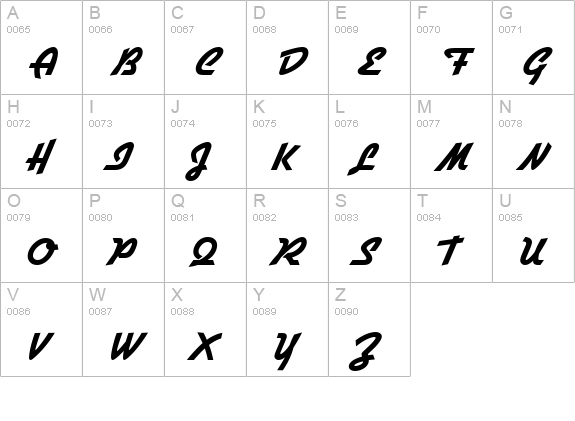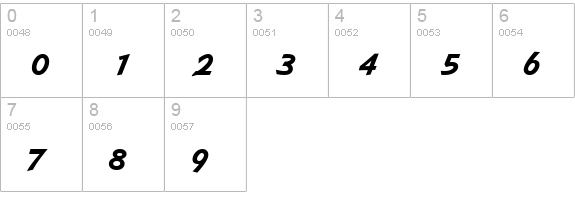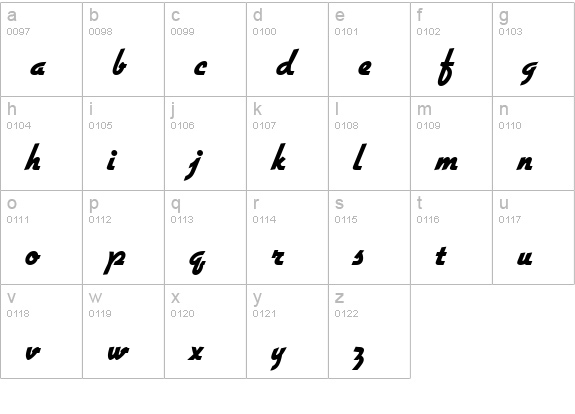
GilliesGotDExtBol Font Details
GilliesGotDExtBol is a bold and striking font that exudes modernity and sophistication. With its clean lines and distinctive letterforms, this typeface is perfect for making a bold statement in your designs. Whether you're creating posters, signage, or branding materials, GilliesGotDExtBol will make your text stand out with its strong presence. The best part? This versatile font is available for free download at FontsMarket.com. Take advantage of this opportunity to add a touch of elegance and style to your projects without breaking the bank. Upgrade your design game today with GilliesGotDExtBol and watch your creations come to life with its powerful aesthetic.